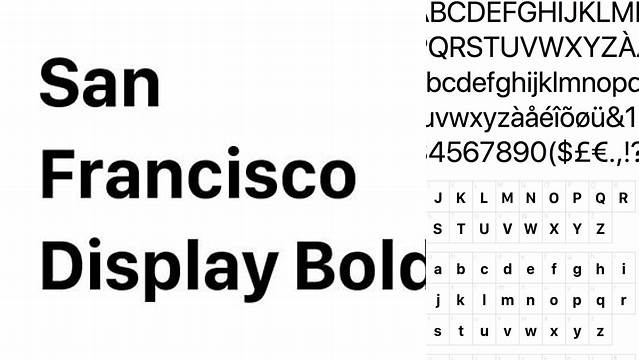
Hey guys, are you ready to amp up your design game? Let's dive into the world of the San Francisco Display Bold font! This gem is not just a font; it's a statement. And the best part? You can snag it for free! This article is your ultimate guide to everything about the San Francisco Display Bold font, from where to download it to how to use it like a pro. We will cover its features, its uses, and why it's a must-have in your design arsenal. So, buckle up, and let's get started!
What is San Francisco Display Bold Font?
So, what exactly is the San Francisco Display Bold font? Well, it's a member of the San Francisco family, a typeface created by Apple. It's known for its clean lines, modern feel, and excellent readability. The "Display" version is specifically designed for larger text sizes, making it perfect for headlines, titles, and any place where you want to grab attention. The bold style adds extra weight, ensuring your text stands out even more. The San Francisco font is famous for its crisp and clear appearance, and its ability to look good in various contexts, whether on screens or in print. Think of it as the cool, minimalist friend in your font collection. Its versatility allows it to fit well with lots of different design styles, from sleek and modern to a bit more playful and quirky, depending on how you use it. Moreover, this font family is known for its great legibility, even at small sizes, so it works really well for things like app interfaces or websites where clarity is key. The San Francisco Display Bold font has a huge impact on design, with its simple yet strong style, making sure your message is clear and eye-catching. It's like giving your designs a fresh, modern upgrade, all thanks to its clean look and bold presence. If you're looking for a font that's both stylish and functional, this is it.
San Francisco Display Bold is more than just letters and numbers; it's a tool that can completely change how your design is perceived. It carries a sense of modernity and sophistication, making your work feel up-to-date. Because it's so legible, your audience will quickly grasp your message without any trouble. The way it's designed keeps the focus on what you're trying to communicate, cutting out any distractions. It works really well with different design elements, like images and other fonts, which gives you lots of creative options. Plus, the fact that it's free makes it accessible to everyone, from individual designers to big companies. Choosing this font shows you're serious about good design and creating a strong brand identity. So, if you're trying to make your designs better and leave a lasting impression, the San Francisco Display Bold font is a great place to start.
Features of San Francisco Display Bold Font
Now, let's get into what makes this font so special. First and foremost, its bold weight is a showstopper. It's designed to be eye-catching, making it ideal for headlines, titles, and any text you want to emphasize. The San Francisco Display Bold font features a modern, clean design that makes it look great in different design environments, and it works really well for both on-screen and printed designs. It has a high level of readability, especially in larger sizes, ensuring your message is clear and easily understood by readers. The overall look of this font is simple but effective, it doesn’t add a lot of extra visual noise, but it still delivers a strong visual impact. The font is also optimized for digital screens. This font is designed to look good and perform well on different devices and screen sizes, this ensures that your text will appear clear and legible no matter where it’s viewed. Beyond the font's visual appeal, it is highly flexible, working well in a variety of design styles. Whether you're aiming for a minimalist, modern look or something more playful, San Francisco Display Bold can adapt and enhance your project.
This font also provides excellent legibility, even at larger sizes, this makes it a great choice for creating headings or titles that are easy to see and understand. The font is designed to work well in multiple contexts, including apps, websites, and print materials, increasing its usefulness. It is designed to be simple, clean, and to the point, and so, it doesn't get in the way of your main message. San Francisco Display Bold font provides a modern, approachable appearance and a strong sense of authority and sophistication to your design, improving its overall impact. It is an adaptable font, that fits in a range of applications and design projects. The San Francisco Display Bold font adds a degree of professionalism and refinement to your work, and it makes sure that your designs look good and function well across multiple platforms.
How to Use San Francisco Display Bold Font in Your Designs
Okay, so you've downloaded the font. Now what? Let's explore how to make the most of the San Francisco Display Bold in your designs. First, think about the context. Because it is a display font, it is designed to be used at larger sizes. It's perfect for headlines, titles, and short blocks of text where you want to make a big impact. Be cautious about using it for body text, since it can be a little overwhelming at small sizes. It is really important to consider the overall tone and style of your design. San Francisco Display Bold conveys a modern, clean aesthetic, and it will work best in designs that share this style. Consider pairing it with a complementary font for body text, to add a nice contrast. Use the font for your titles, or short words to make your text really stand out. Be careful about using the font for large blocks of text, since it may be overwhelming. The font is super useful for creating a strong visual impact, and it’s an ideal choice for headlines, titles, and any text that you want to be a real attention-grabber. When you pair it with other fonts, it helps you create a visually appealing and unified design.
When using the San Francisco Display Bold font, think about what it will be used for. The boldness and clarity of the font make it a great choice for making titles or headings that really pop out. It works really well with modern and minimal design styles. It matches with any design elements, but if you don't do it right, it may look unbalanced, and not so professional. It's simple, it's clean, and it’s very effective. Be sure you're using it to highlight important parts of your content. It’s all about making your design clear, professional, and visually appealing. It can be used to create visually appealing designs. Make sure you are using it correctly so it does not look out of place.
San Francisco Display Bold Font: Design Examples and Inspiration
Let's spark your creativity with some examples of how the San Francisco Display Bold font is being used by other designers. Explore websites, apps, and print materials to see it in action. Notice how designers use it to draw attention to specific content, create a sense of modernity, and build a brand's identity. Analyze the color schemes, layouts, and other font choices that complement the San Francisco Display Bold font. Pay attention to how the font is used in different contexts – from website headers to mobile app interfaces. This will help you see how the font can be adapted to various design purposes. Collect inspiration from design platforms, such as Behance, Dribbble, and Pinterest. Search for projects that use the San Francisco Display Bold font to see how other designers make creative use of it. Create a mood board, a collection of design elements that inspire you, which will help you create cohesive and impactful designs. By understanding how other designers are using the San Francisco Display Bold font, you can get lots of ideas for how to incorporate it into your own designs. Remember, the best designs are all about learning from others and putting your unique twist on it!
Conclusion: Make San Francisco Display Bold Font Your Go-To
So there you have it! The San Francisco Display Bold font is a versatile, modern, and powerful tool for any designer. Its clean lines, bold presence, and free availability make it a must-have in your design toolkit. Whether you're working on a website, a mobile app, or a print project, this font can help you make a lasting impression. Remember to download it from a reputable source, install it correctly, and experiment with its features. Embrace the font's versatility, use it in a smart way, and watch how it takes your designs to the next level. Now go out there, create, and let your designs shine with the bold elegance of the San Francisco Display Bold font! Happy designing, guys!